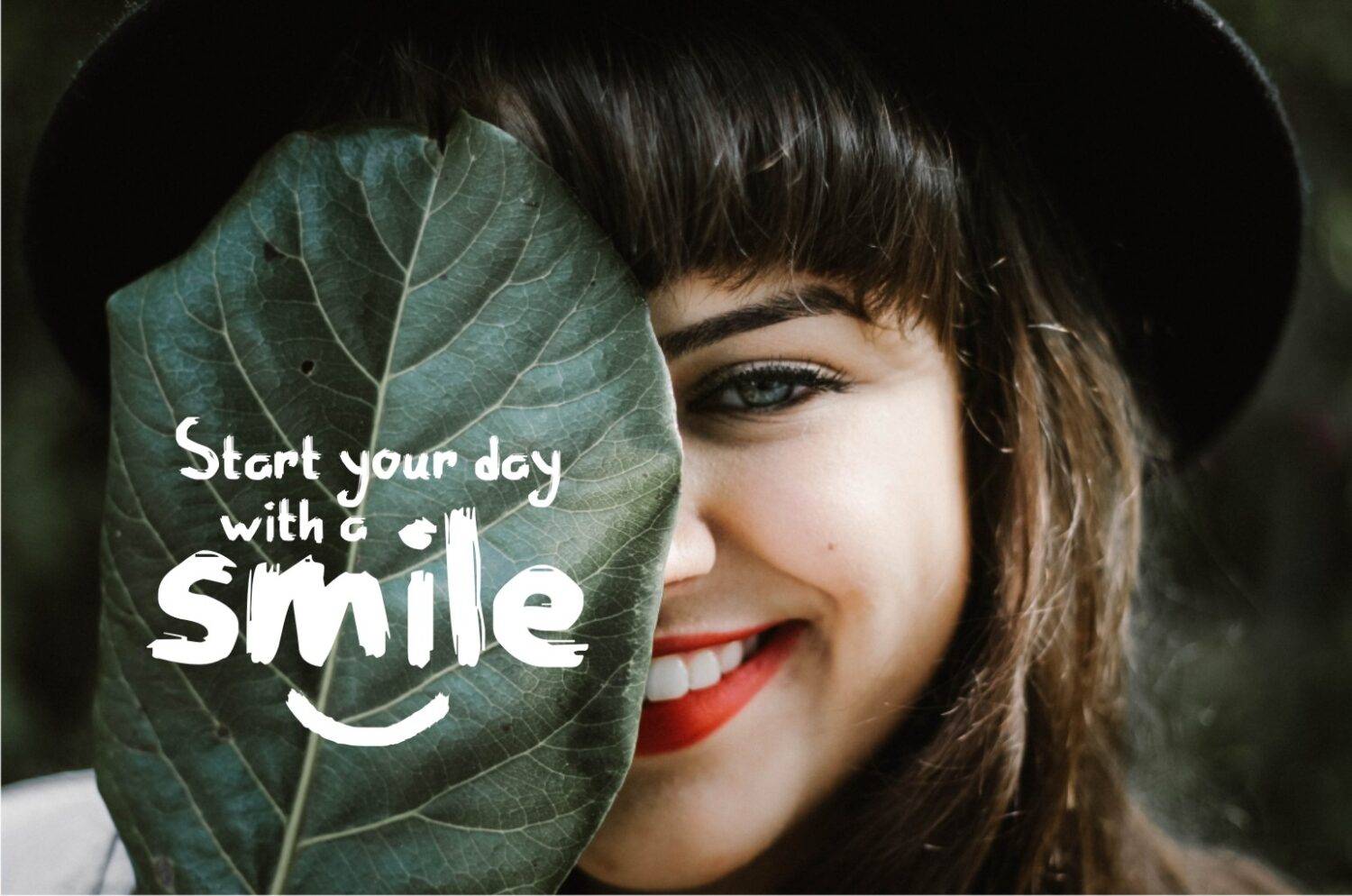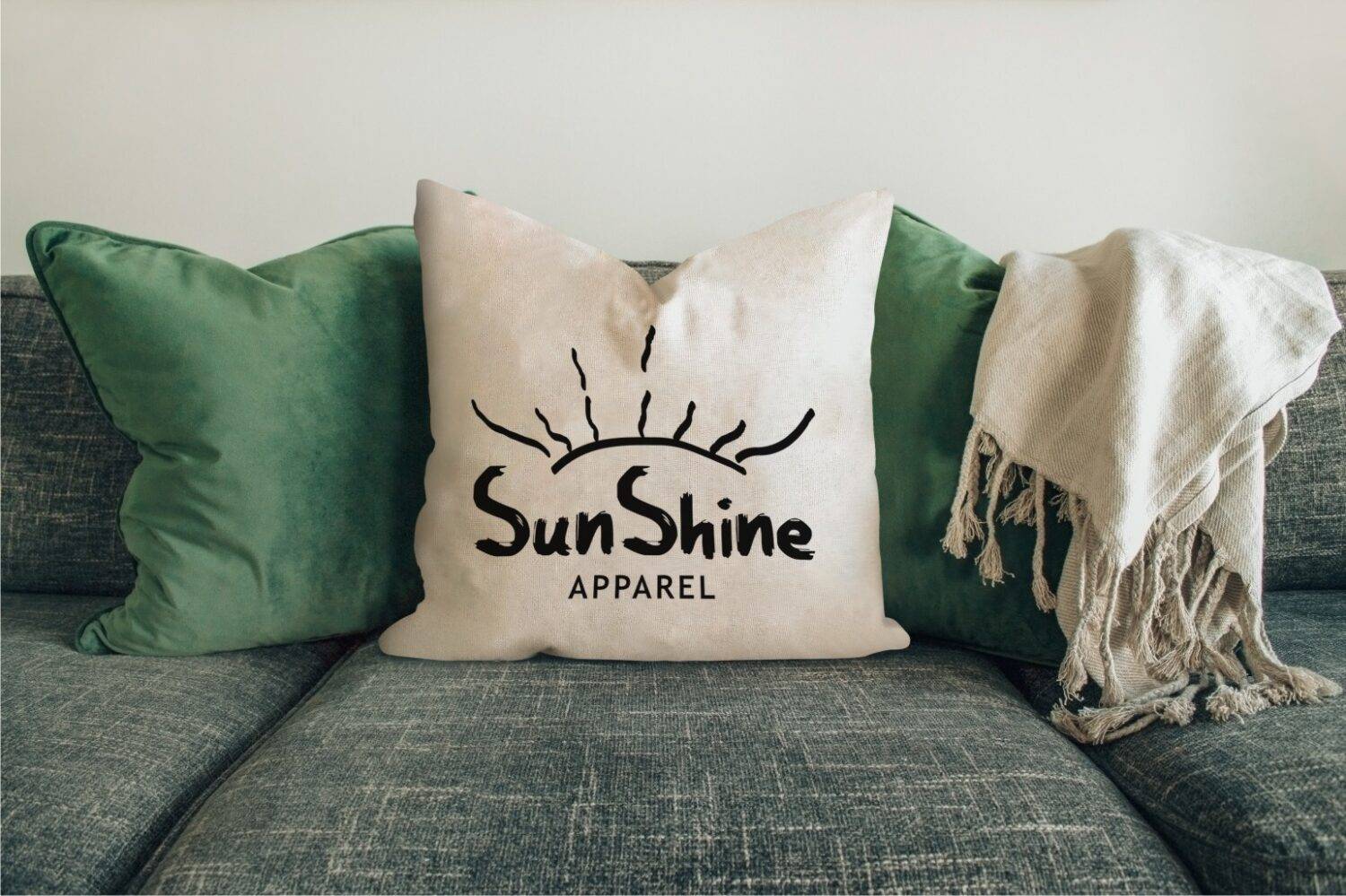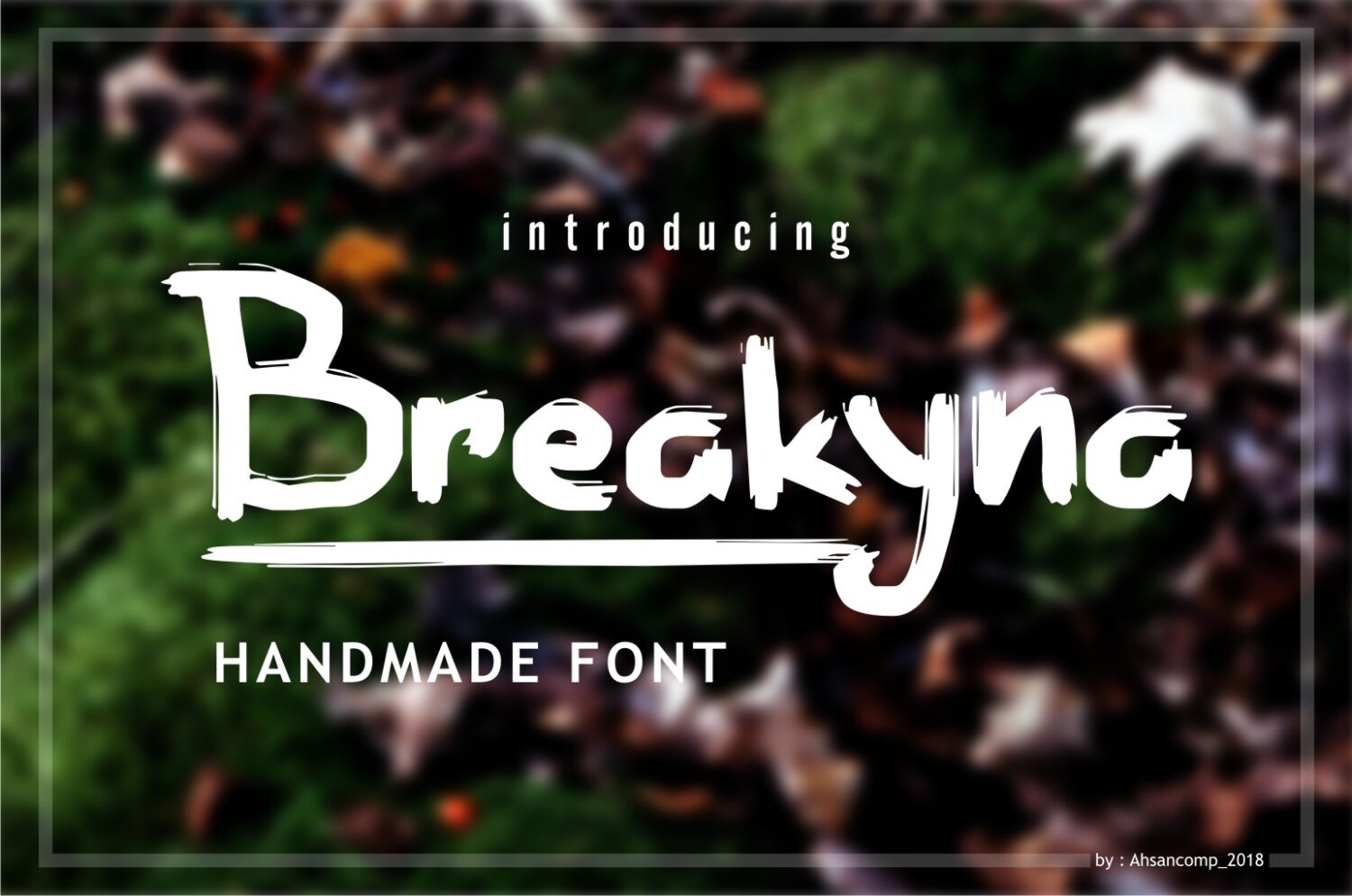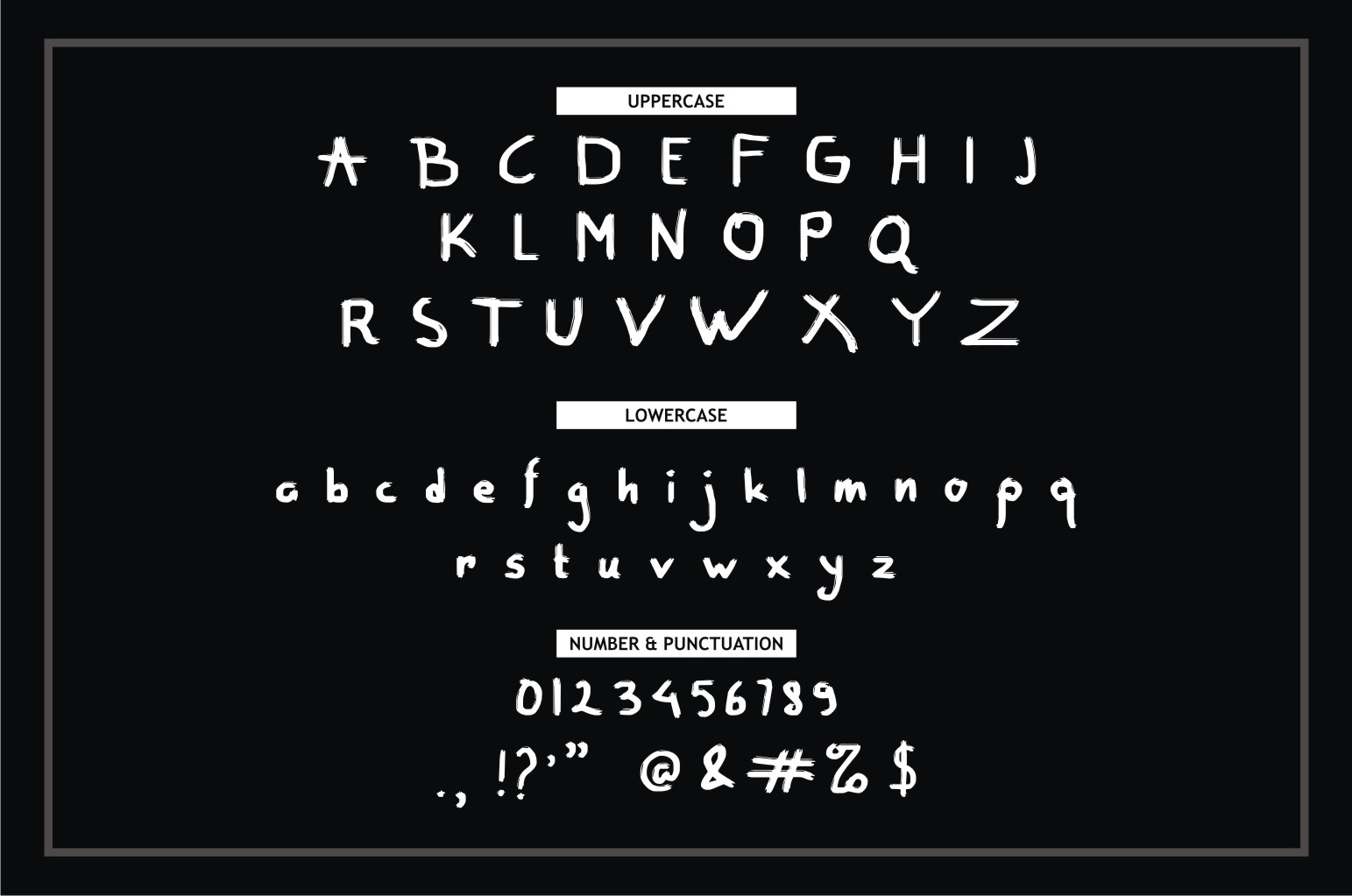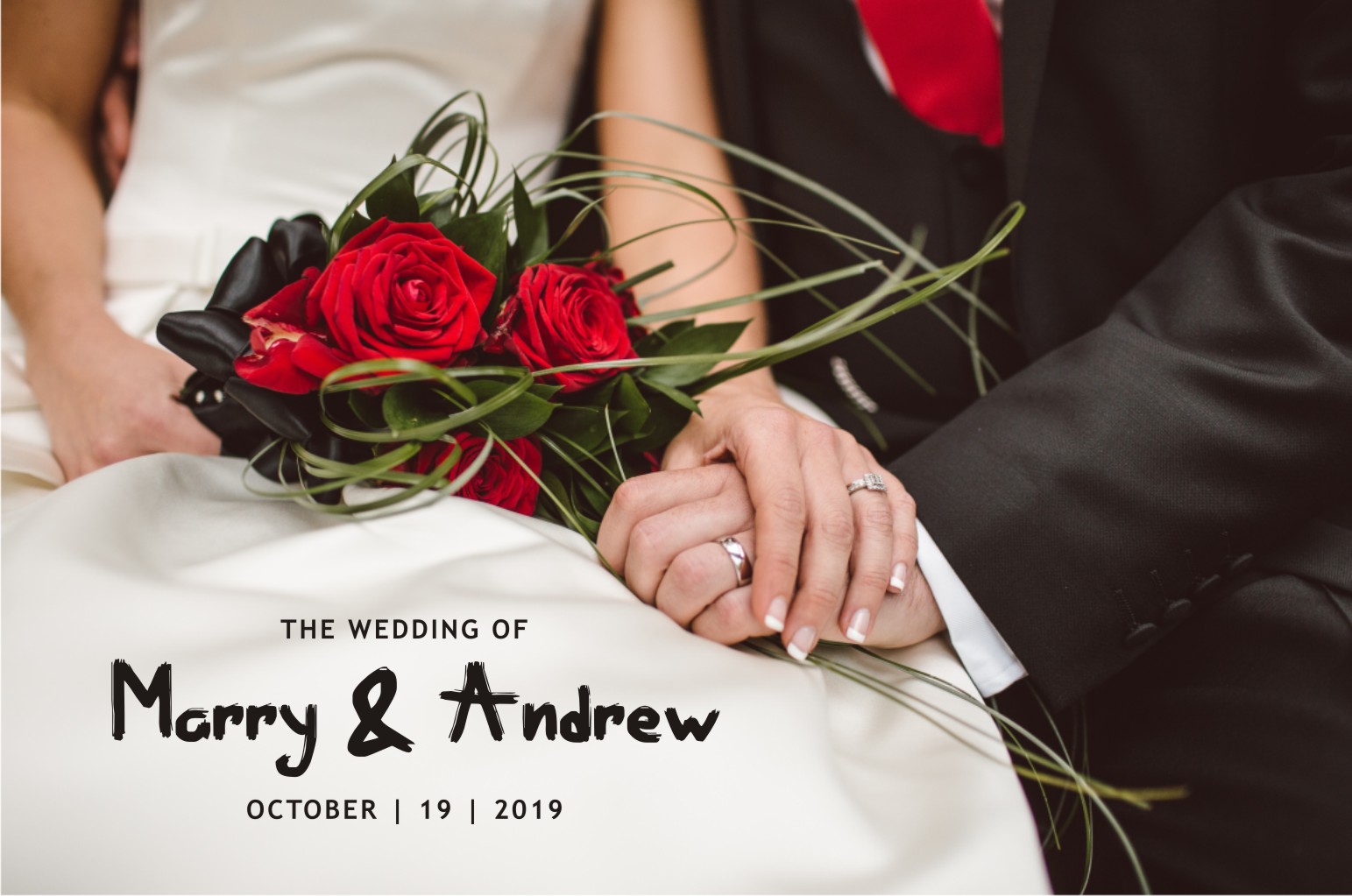
Breakyna is a bold, hand-drawn sans serif font with a rough, brushstroke texture that adds a playful and edgy vibe. Its quirky, uneven letterforms and moderate x-height make it perfect for creative headlines, posters, and casual branding that seeks to stand out with a unique, artistic flair. This font works especially well where an informal, handmade feel is desired, bringing personality and energy to any design.
Breakyna Font
About Breakyna Font